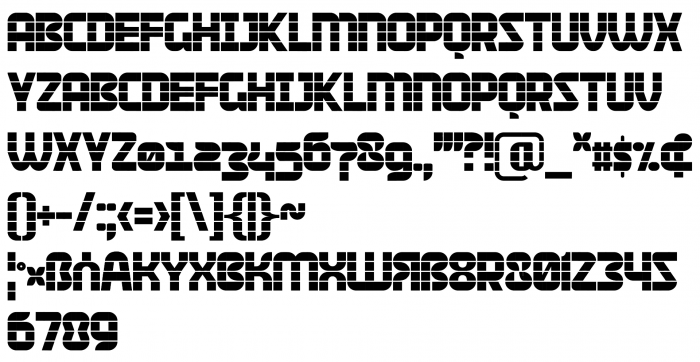
• FRUNTSTOCT UPPER — FontStruct logotype uppercase reinvention
This second font is the next evolution in my take on the Fontstruct logo type.
Its an experimental approach towards the reinvention of its uppercase letters. The first one was a unicase minuscule that was aimed at creating an improved version of the original logo lettering concept. FRUNTSTOCT LOWER remained faithful to the original letters, whereas FRUNTSTOCT UPPER is a complete reimagining.
Motivation behind the complete overhaul came after checking out existing Structurosa entries by other Fontstruct members.
It became evident that only one or two members truly were able to build upon its original concept and could come up with a 'unique' and decent majuscule.
AT Archistruct Outline by Kassymkulov (aka Architaraz) being the clear winner in my opinion. — Which is a true masterpiece !!
Some others 'tried' to be original, and made an attempt at a personalized lettering, but couldn't solidify ideas into a consistent whole. But the majority simply copied rob's original design.
— For that reason I choose to take the alternative road and tried to come up with something new.